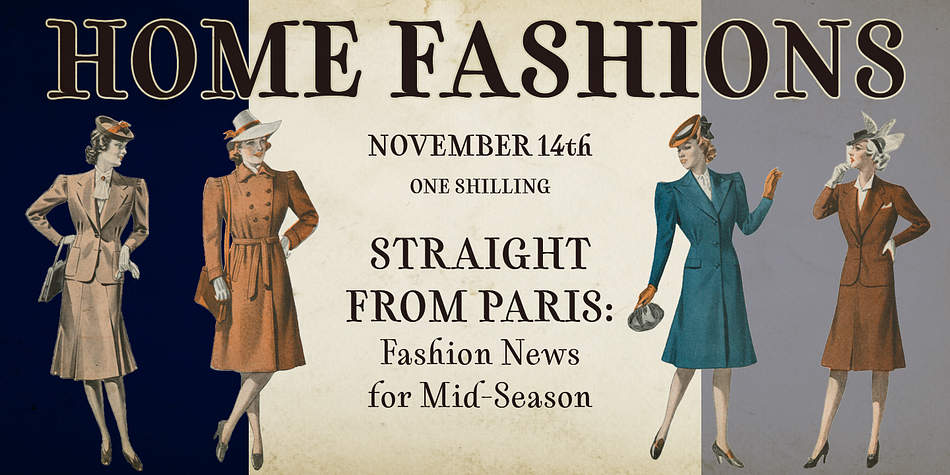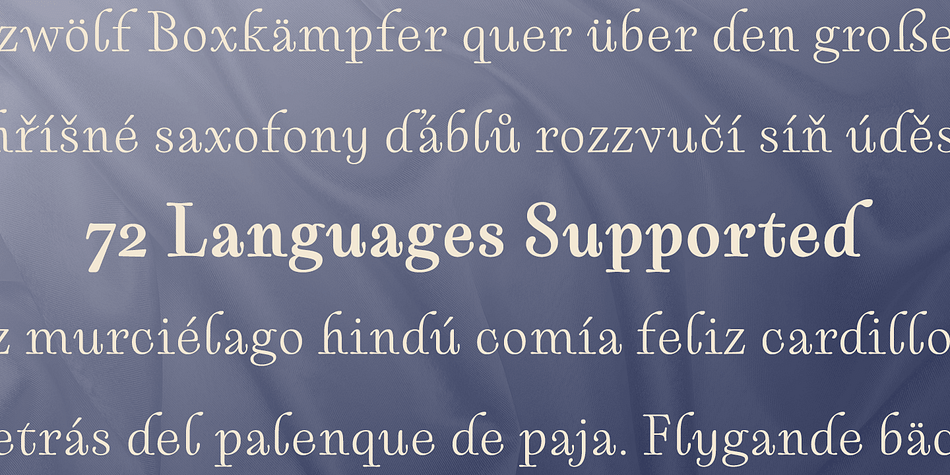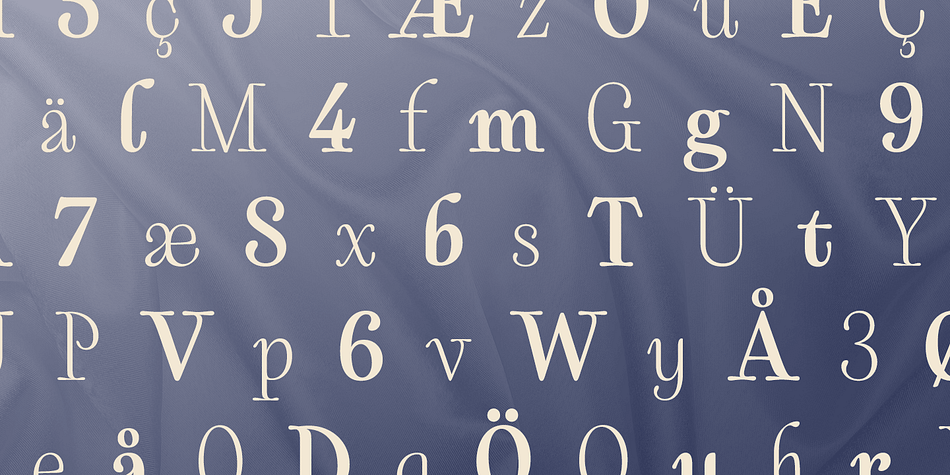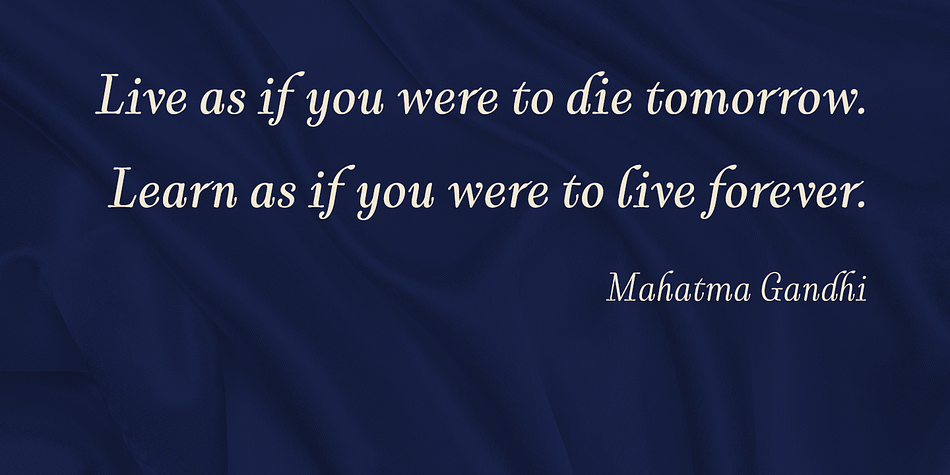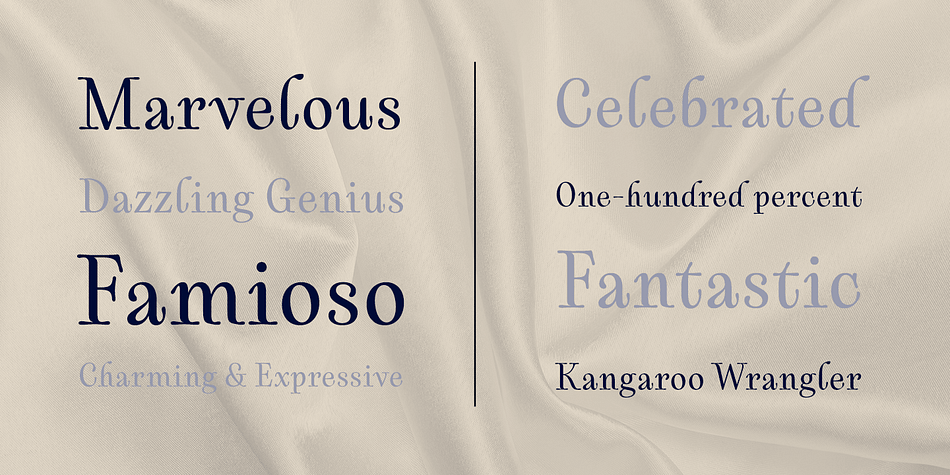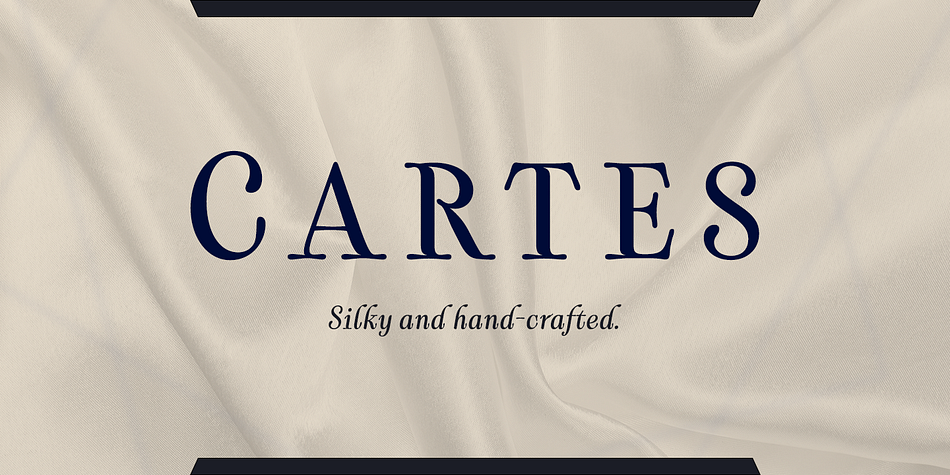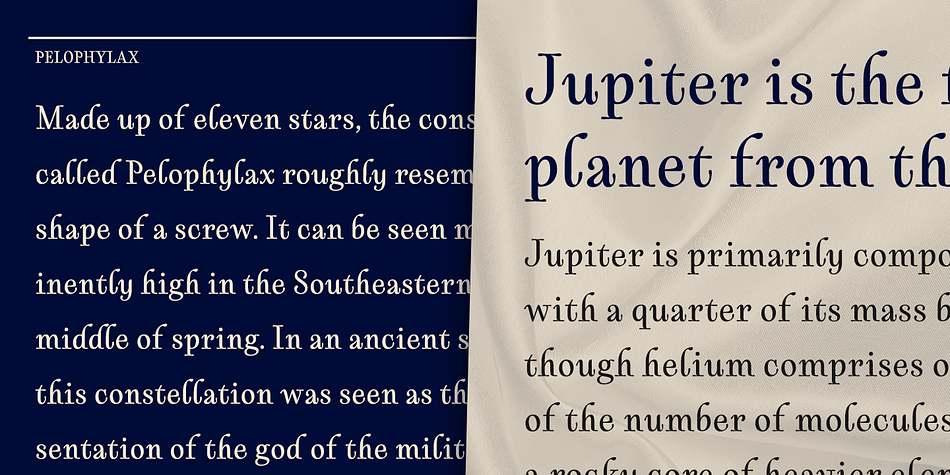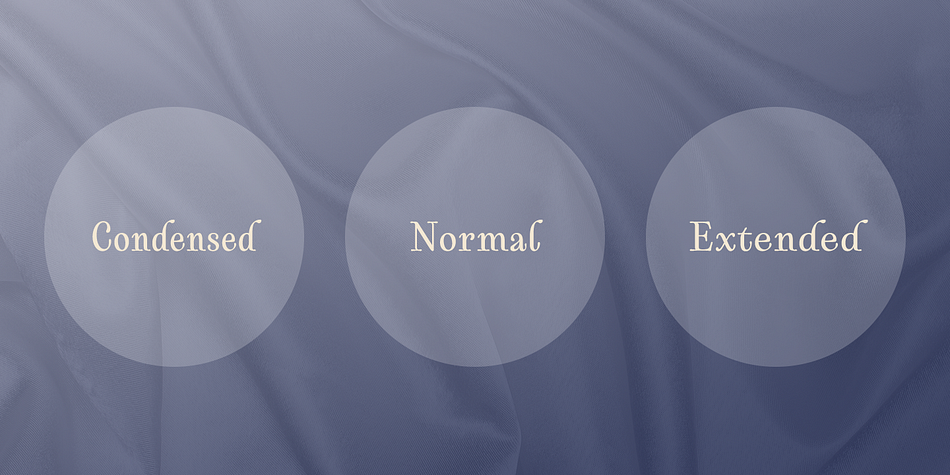
Designed by Jeremy Dooley, Cartes is a display serif and serif font family. This typeface has fifty-four styles and was published by Insigne Design.
Cartes has a bit of a strange origin story, as far as fonts go. It’s a combination of ideas from 1920’s advertising and hand-painted letters from the 1500s.
The typeface was designed to flow with elegance and speed yet retain a sense of the handmade. The serifs flow with indentations implying movement and terminate with inky globules that lend your copy a sense of gravitas.
This typeface can be used for headlines, short texts, posters, logos, headlines in big sizes or just as easily for ad text.
At large sizes, pen strokes can be seen that give the typeface a touch of humanity and vigor. At smaller sizes the type is still unique, but readable.